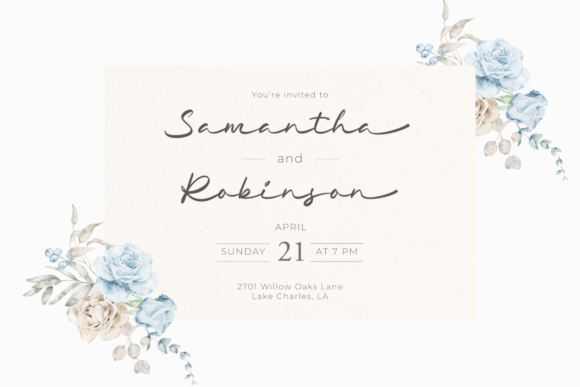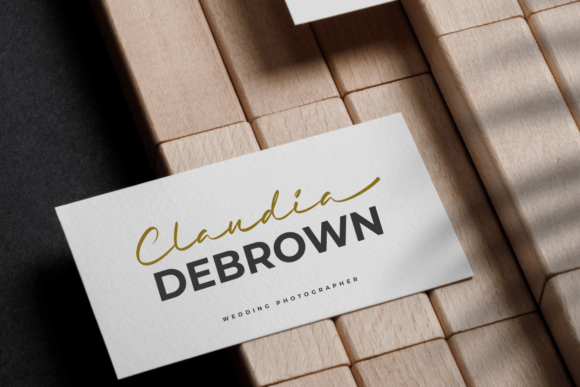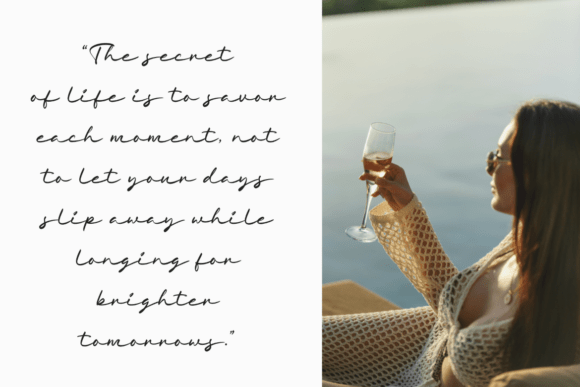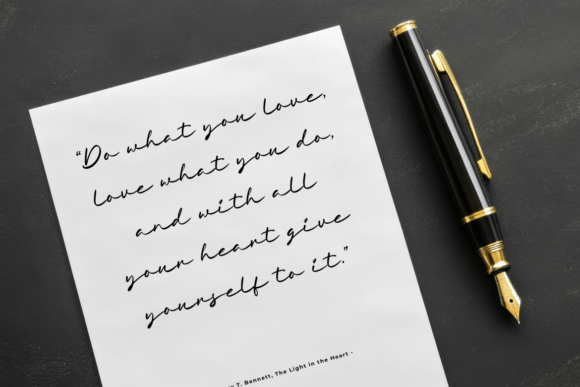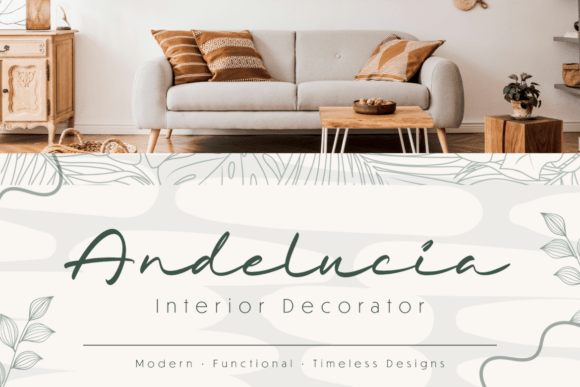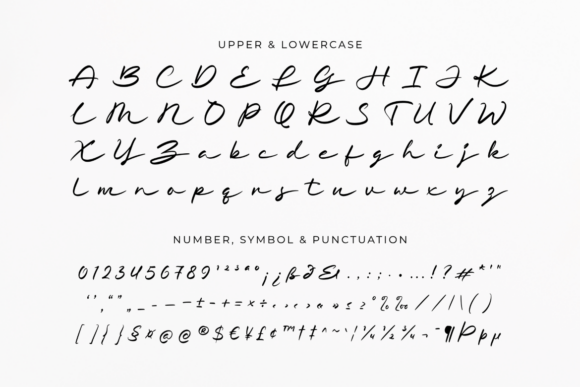
Introduction to Loving Signature Font
Loving Signature is a classy signature script with an elegant handwritten flow.
Perfect for wedding quotes, invitations, logos, and branding projects that need a romantic and stylish touch Includes beautiful ending swash alternates for a timeless look.
Key Features of Loving Signature Font